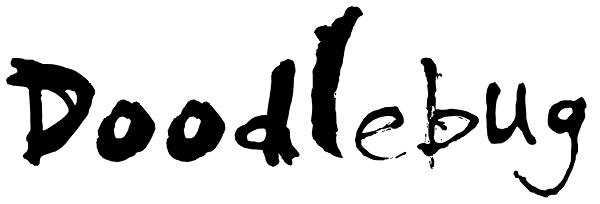
Doodlebug
Designed by London based designer Andrew Smith, Doodlebug is one of those very casual, unstructured styles that have become so popular within the graphics that are designed to target today's younger generation. The shape, weight and height of the...